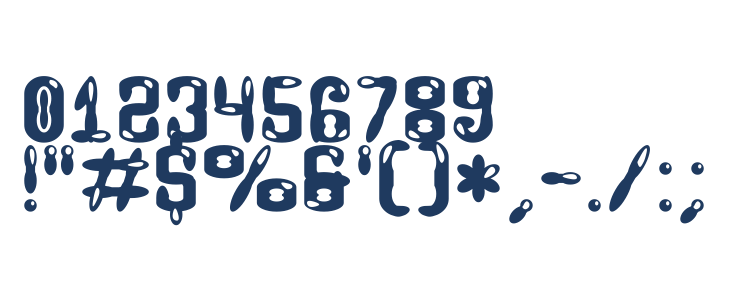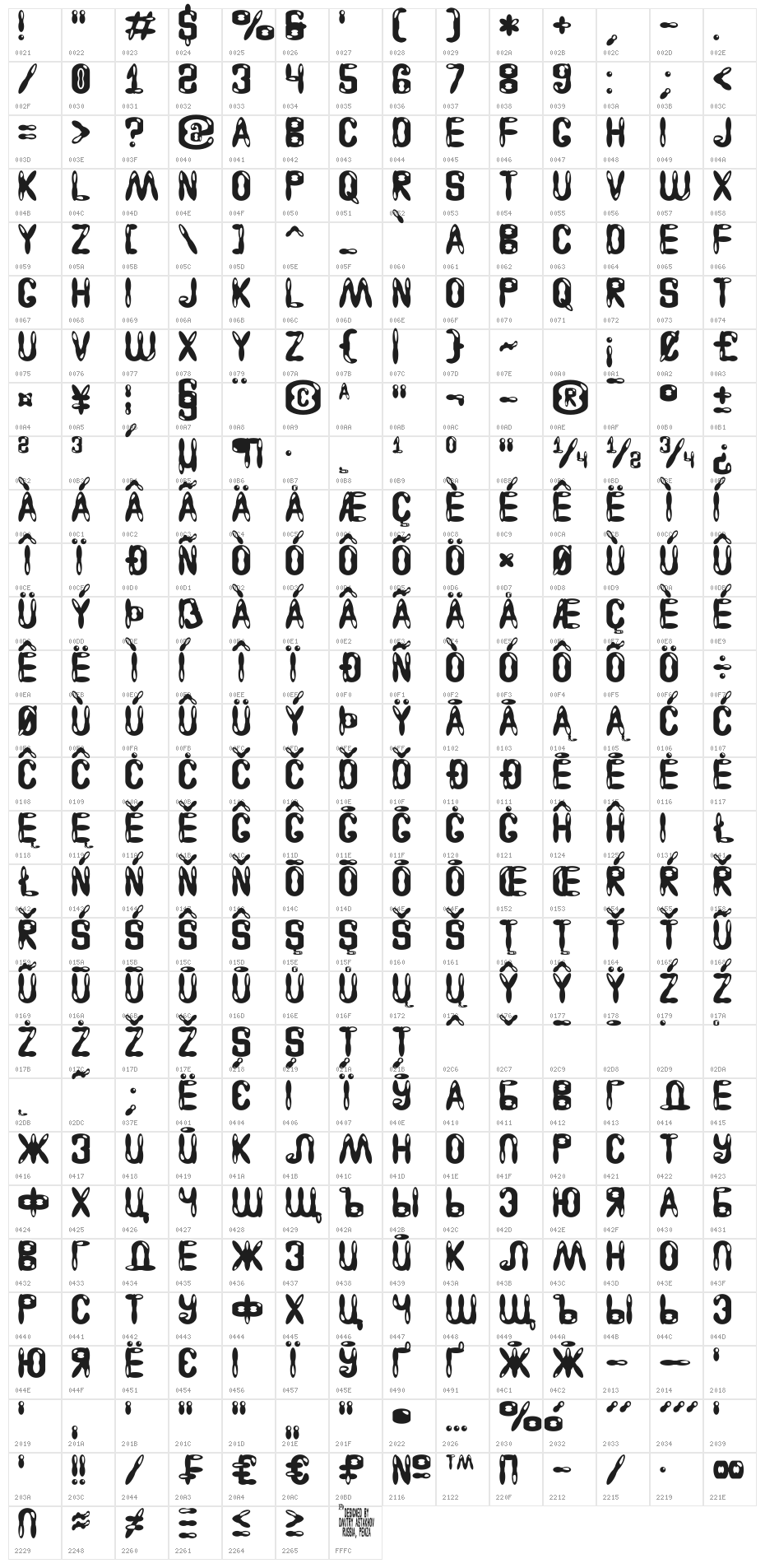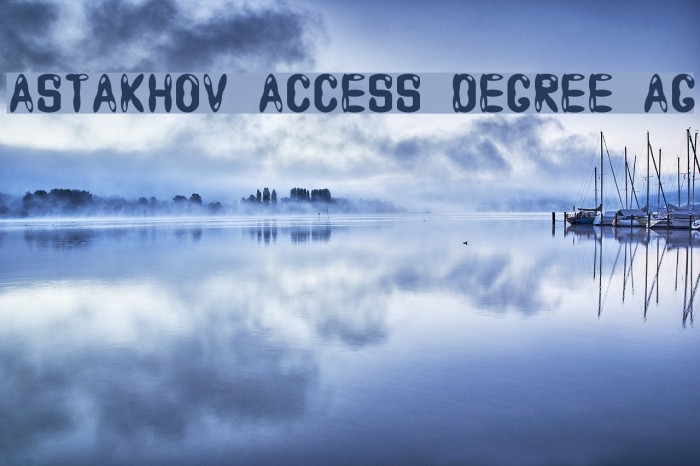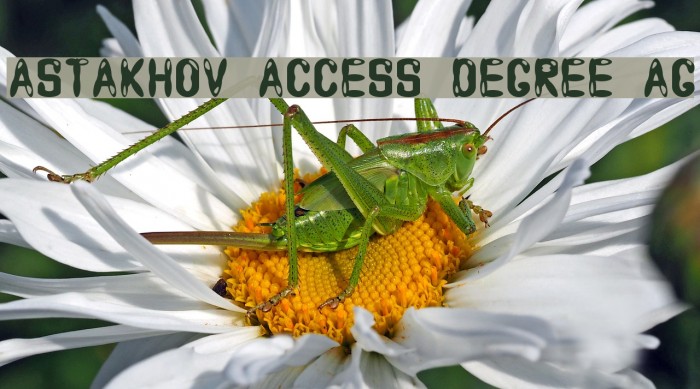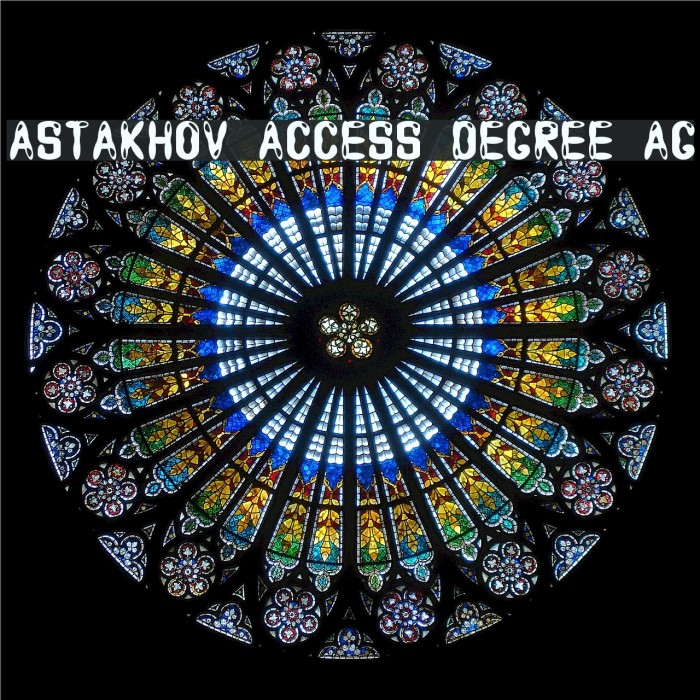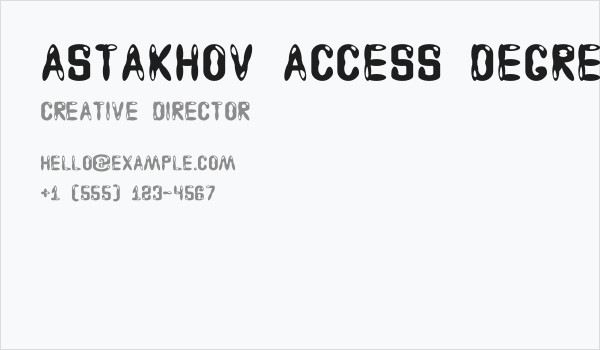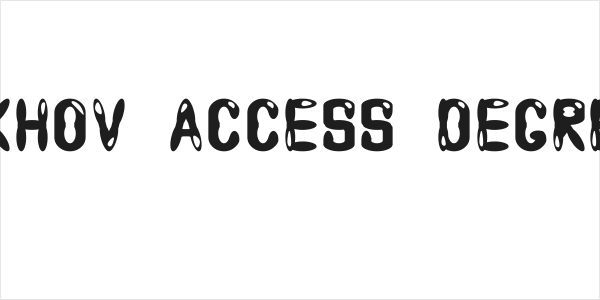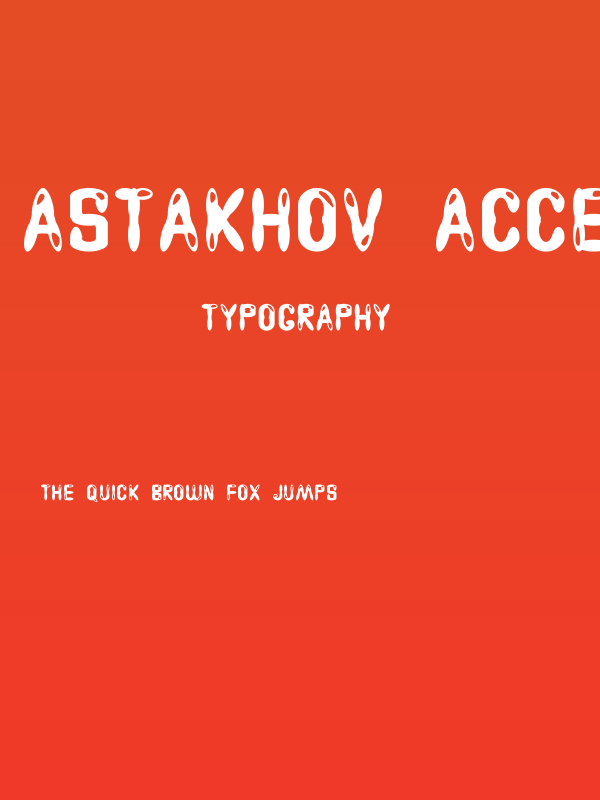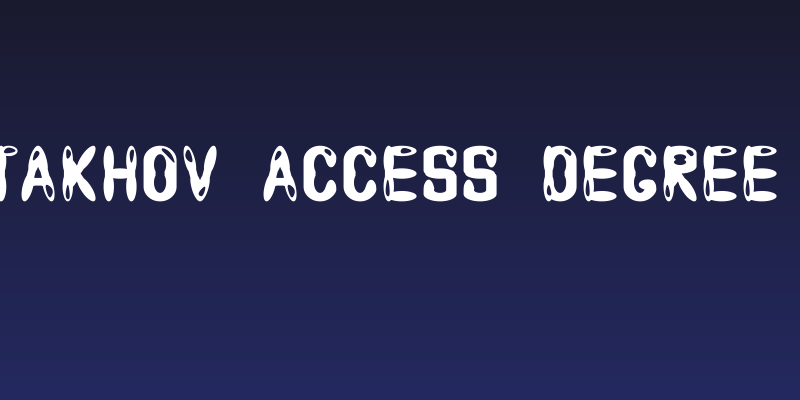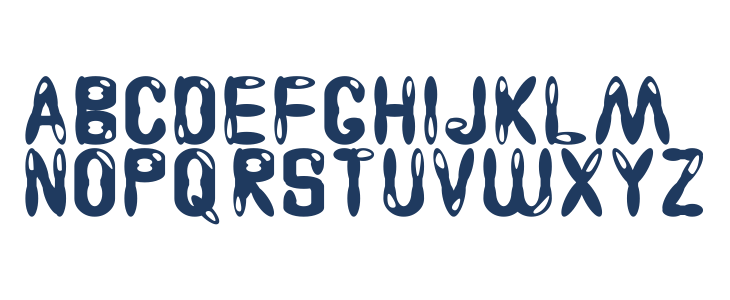
Astakhov Access Degree AG Font
Astakhov Access Degree AG Description
This font features a unique and playful design with a bold and bubbly appearance. The characters are rounded with irregular, organic shapes that create a sense of movement and fluidity. The letters have a high contrast between thick and thin strokes, giving them a dynamic and eye-catching look. The overall style is decorative and modern, making it suitable for creative and artistic projects. The font's distinctive style makes it stand out, perfect for capturing attention in headlines or logos.
Overall StyleModern, Decorative
Proposed ProjectsThis font is perfect for use in children's books, playful branding, event posters, and any project that requires a fun and lively aesthetic.